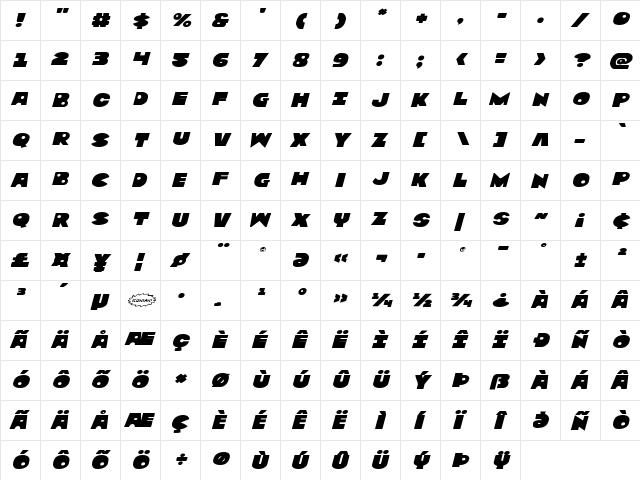
Zounderkite Expanded Italic Expanded Italic
Design Context for Zounderkite Expanded Italic Typeface
Zounderkite Expanded Italic is a composed and adaptable typeface that performs quietly and consistently across a wide range of design contexts. Its italic angle brings a sense of urgency and motion to the letterforms.